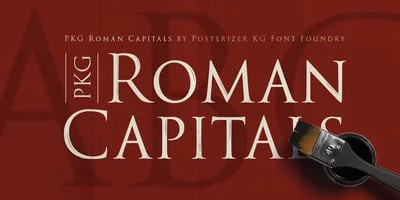
PKG Roman Capitals Font
PKG Roman Capitals Font is perfect for government institutions, legal firms, classical architecture studios, museum exhibitions, prestigious universities, historical documentaries, and monumental inscription projects. This authoritative typeface embodies the eternal power and dignity of Roman civilization, bringing classical grandeur and institutional credibility to any design project requiring gravitas and historical authenticity.
What makes PKG Roman Capitals Font exciting is its meticulous recreation of authentic Roman stone-carved letterforms that have influenced Western typography for over two millennia. The font features precisely proportioned capital letters with classical geometric harmony and timeless elegance that evoke the architectural magnificence of ancient Rome and the enduring strength of democratic institutions. Its monumental character commands respect while maintaining exceptional legibility for both display and text applications.
The PKG Roman Capitals Font family includes multiple weights with historically accurate variations and classical ornamental elements. The character set features authentic Roman numerals, inscriptional ligatures, governmental symbols, and architectural decorative accents that enhance the font's institutional appeal. Advanced OpenType features include historical alternates, contextual substitutions, and multilingual support for international government and educational institutions.
Whether you're designing institutional brand identities, creating governmental publications, or developing classical architectural materials, PKG Roman Capitals Font provides unmatched authority and versatility. This prestigious typeface transforms ordinary text into powerful institutional statements that inspire confidence and respect while establishing distinguished recognition in competitive government, legal, and educational marketplaces.